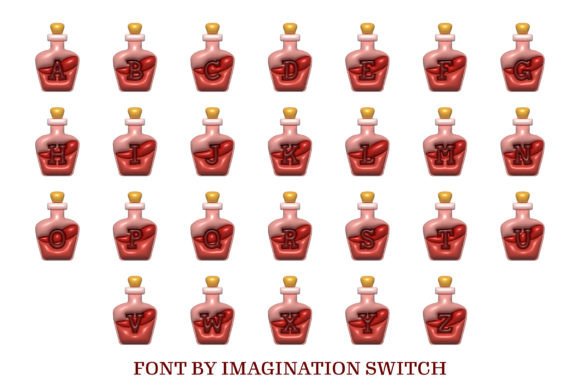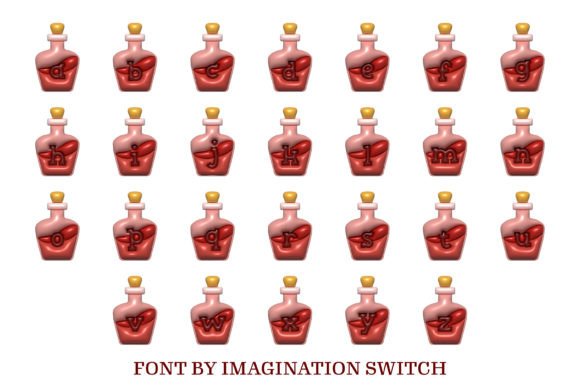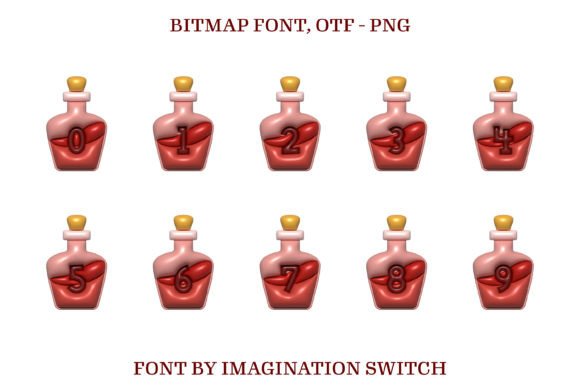
Red Potion Inflated Font – Free Download
Introduction to Red Potion Inflated Font
Red Potion is a typographic creation that brings dimension and vitality to each of its characters.
With clever use of color, this font can provide an engaging and dynamic appearance Experience a unique visual sensation with the 3D style that creates an illusion of depth in the text.
Key Features of Red Potion Inflated Font
Why Choose Red Potion Inflated Font?